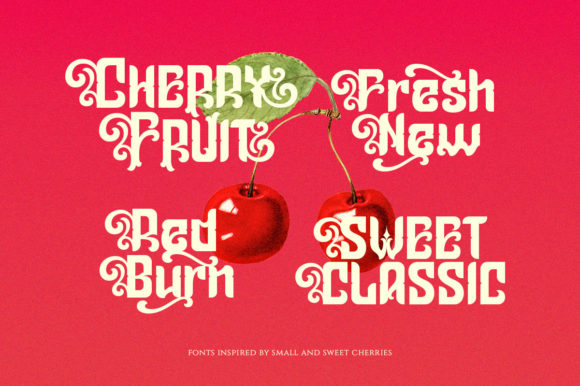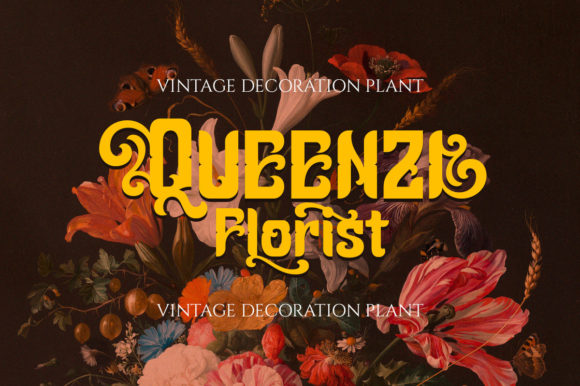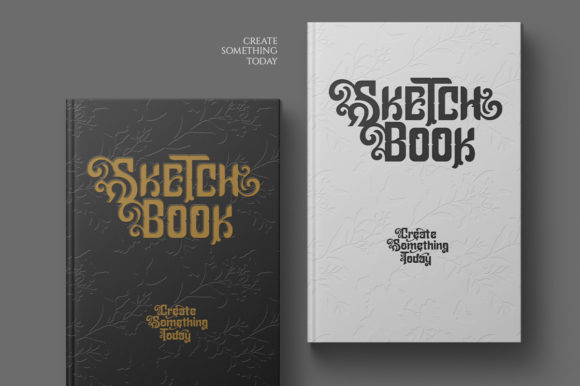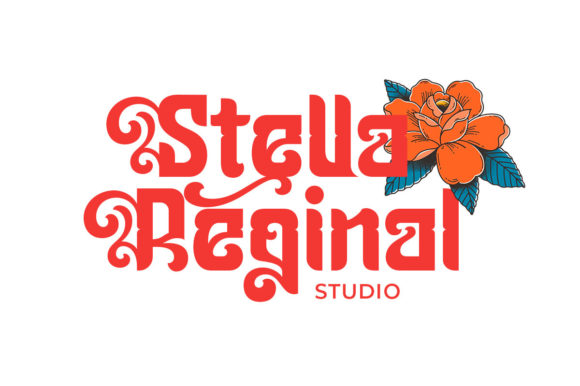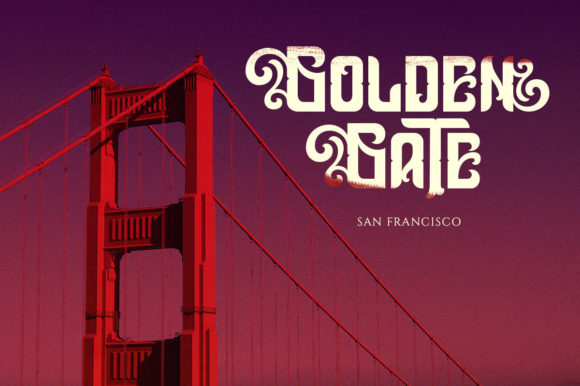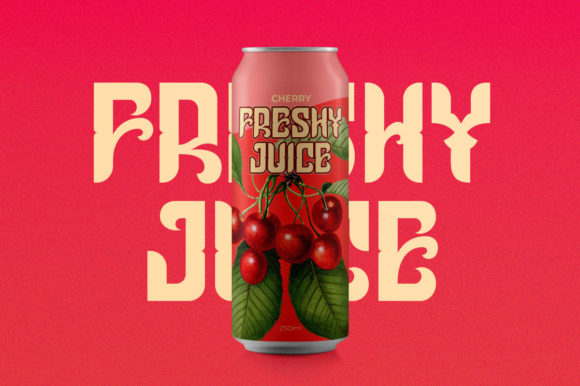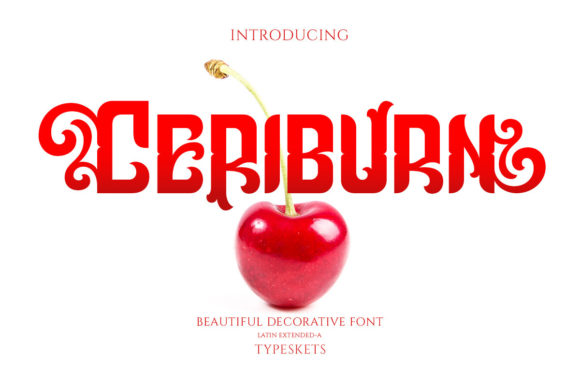
Ceriburn Font: Elevate Your Designs with a Bold, Vintage Flair
In the world of typography, fonts play a crucial role in conveying the tone and personality of a design. For designers and crafters looking to add a touch of nostalgia and sophistication to their projects, Ceriburn Font is an excellent choice. This bold, detailed, and vintage-styled display font is versatile and can be used in a wide range of applications, from greeting cards to headlines.
The Characteristics of Ceriburn Font
Ceriburn Font boasts a unique blend of classic and modern elements, making it a standout in the world of typography. Its bold and detailed design ensures that it grabs attention, while its vintage flair adds a touch of elegance and sophistication. The font’s versatility makes it suitable for various design projects, including:
- Greeting cards: Add a personal touch to your cards with Ceriburn Font’s distinctive style.
- Headlines: Make your headlines pop with this bold and eye-catching font.
- Logos: Create a lasting impression with Ceriburn Font’s unique and memorable design.
- Posters: Add a vintage touch to your posters and make them stand out.
Why Choose Ceriburn Font?
- Unique Style: Ceriburn Font’s distinctive design sets it apart from other fonts, ensuring your projects stand out.
- Versatility: This font can be used in various design projects, from digital to print.
- Elegance: Ceriburn Font’s vintage flair adds a touch of sophistication and elegance to your designs.
- Easy to Read: Despite its bold design, Ceriburn Font remains easy to read, making it perfect for headlines and titles.
| Font Name | Ceriburn Font |
| Author | Typeskets |
Ceriburn Font is a bold, detailed, and vintage-styled display font that can elevate your designs and add a touch of sophistication. Its versatility and unique style make it perfect for various design projects, from greeting cards to headlines. By following the tips outlined above and experimenting with Ceriburn Font, you can create stunning designs that leave a lasting impression.